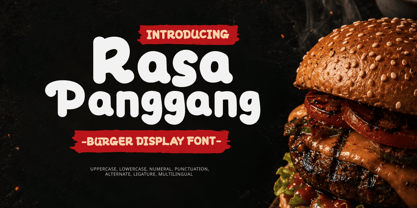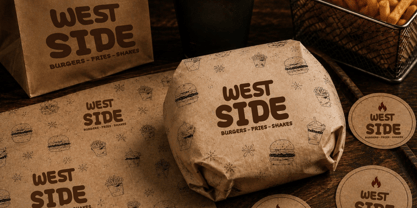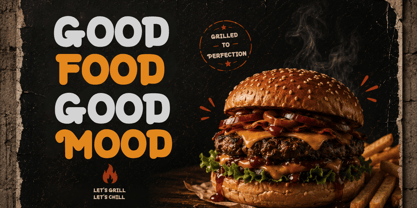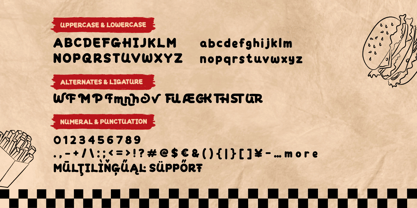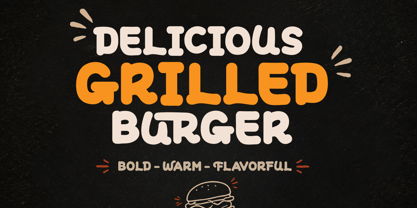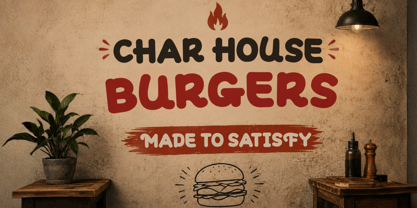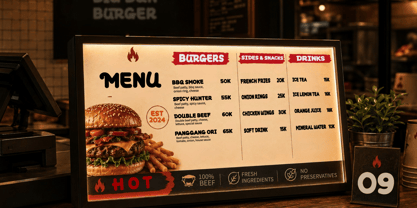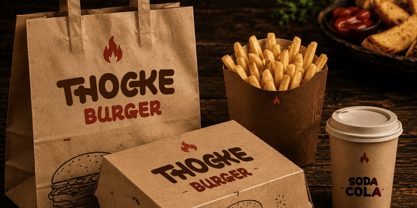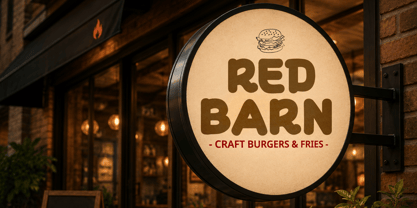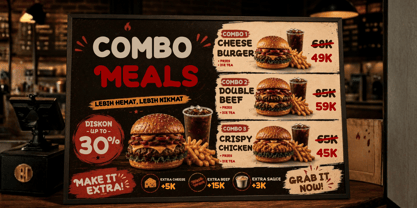
Rasa Panggang
by Trabas Kriya
The Rasa Panggang Font Family was designed by Murozakul Akhsan and published by Trabas Kriya. Rasa Panggang contains 1 styles. More about this family
Rasa Panggang – Burger Display Font is a bold, playful, and modern display typeface created for food branding, burger restaurants, fast-food businesses, and contemporary culinary design projects. Its thick rounded letterforms deliver a delicious, friendly, and eye-catching personality, making it perfect for headlines, logos, menus, packaging, promotional materials, and digital advertising that instantly grabs customer attention.
This typeface is an excellent choice for burger shops, food trucks, cafes, BBQ restaurants, pizza brands, fried chicken businesses, street food vendors, and modern food & beverage startups. The expressive display style creates a memorable brand identity while maintaining excellent readability across posters, menu boards, websites, social media campaigns, packaging, and commercial advertising.
Designers: Murozakul Akhsan
Foundry: Trabas Kriya